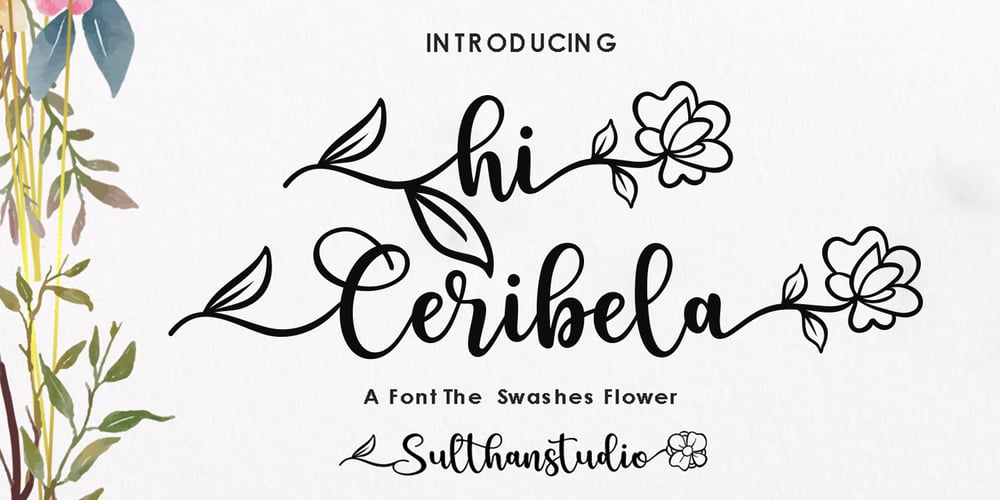
Hi ceribela
Hi ceribela font
Hi ceribela Font Family was designed by Nasrullah and published by Sulthan Studio. Hi ceribela contains 1 styles and family package options. Hi Ceribela is a handwritten decorative font adorned with leaves and flowers Cute and stylish, add it to any of your creative projects, and it will make them come alive!